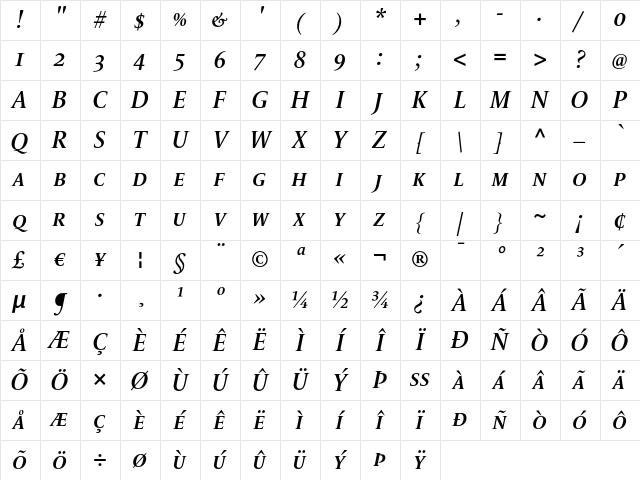
LeMondeLivre DemiItalic Small Caps
Style: DemiItalic Small Caps
Complete LeMondeLivre DemiItalic Small Caps glyph index. Displaying only characters natively supported by LeMondeLivre DemiItalic Small Caps font.
Design Context for LeMondeLivre
LeMondeLivre is a composed and adaptable typeface that performs quietly and consistently across a wide range of design contexts. The slanted form adds forward momentum and visual energy.
Pro Tip: Use LeMondeLivre for emphasis, pull quotes, and subheadings where its slanted energy can add rhythm to the layout.